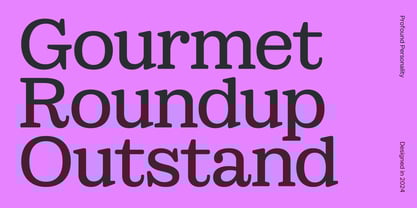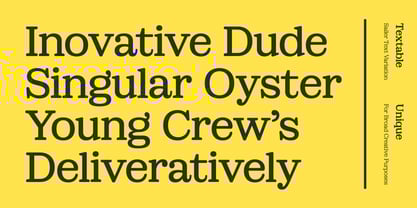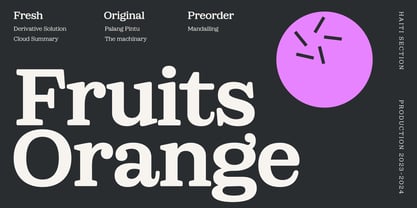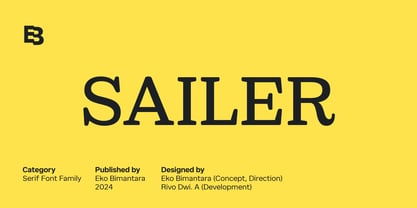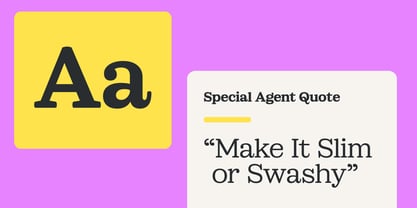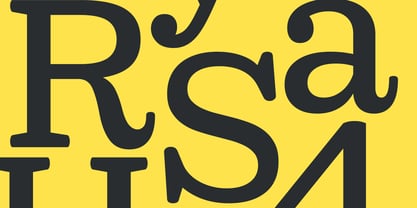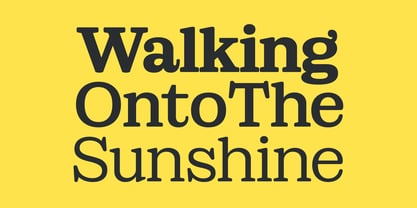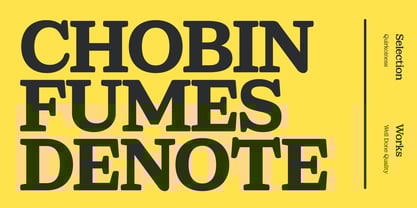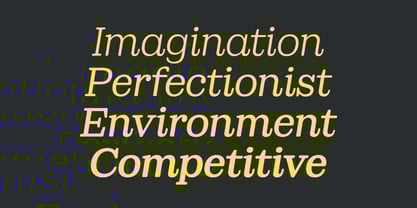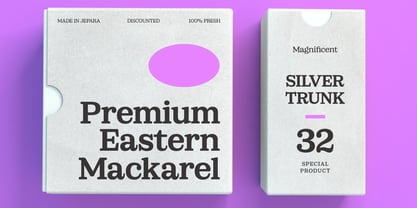
Sailer
by Eko Bimantara
The Sailer Font Family was designed by Eko Bimantara, Rivo Dwi Adriansyah and published by Eko Bimantara. Sailer contains 16 styles and family package options.
Sailer is a serif display font family that embodies a blend of western, soft, classic, and vintage elements. Designed to fit unique, bold, and classic themes, Sailer features tight spacing, soft edges, and a quirky personality that adds character and charm to any design. The font family includes seven styles ranging from Thin to ExtraBold, each accompanied by matching Italics, and covers a broad range of Latin languages, ensuring versatility across various design projects.
Ideal for display, large-size settings, and headers, Sailer is perfect for use in various layout designs, logos, websites, brand identities, and product packaging. Its distinctive blend of western and vintage aesthetics, combined with a soft and classic feel, makes it suitable for both text and web font applications. Sailer brings a timeless and unique touch to any creative project.
About Eko Bimantara
Eko Bimantara is a type designer from Indonesia. Always has an intention to creating fonts that not only look great but also perform across a wide range of mediums and also across wide range of theme. The goal is to give designers the tools to make their projects that speaks a lot with various expression. Eko Bimantara’s fonts are featured in everything from corporate identities to street art posters, and have numerous ideas and concept ready to expand for fresh fonts for years further.